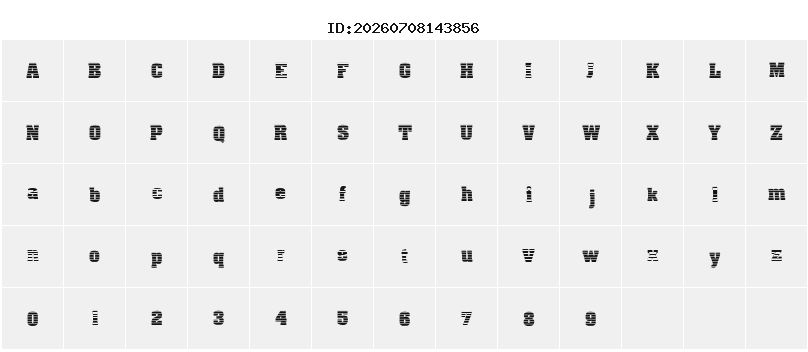
DSU_Punch Stripes Preview
• Font Name: DSU_Punch Stripes
• Full Font Name: DSU_Punch Stripes
About DSU_Punch Stripes.ttf
DSU_Punch Stripes.ttf is a modern, elegant sans-serif font designed for ultimate readability and visual harmony. Perfect for branding, headlines, web design, and print materials.